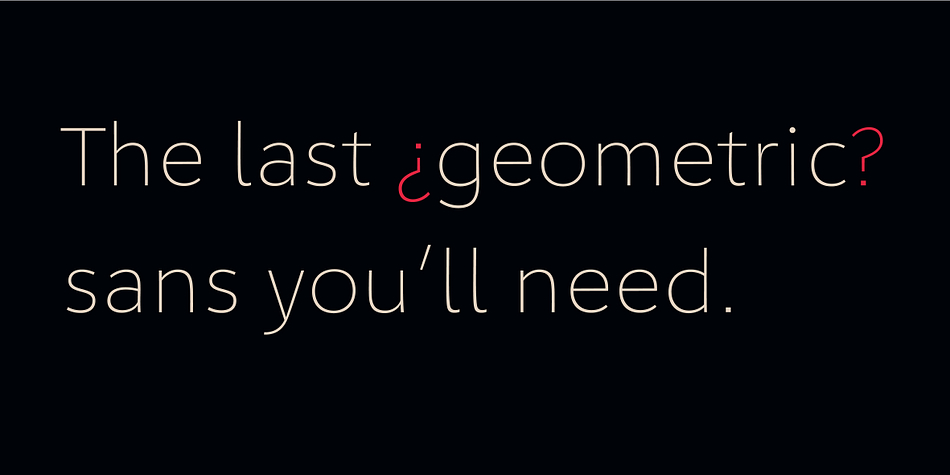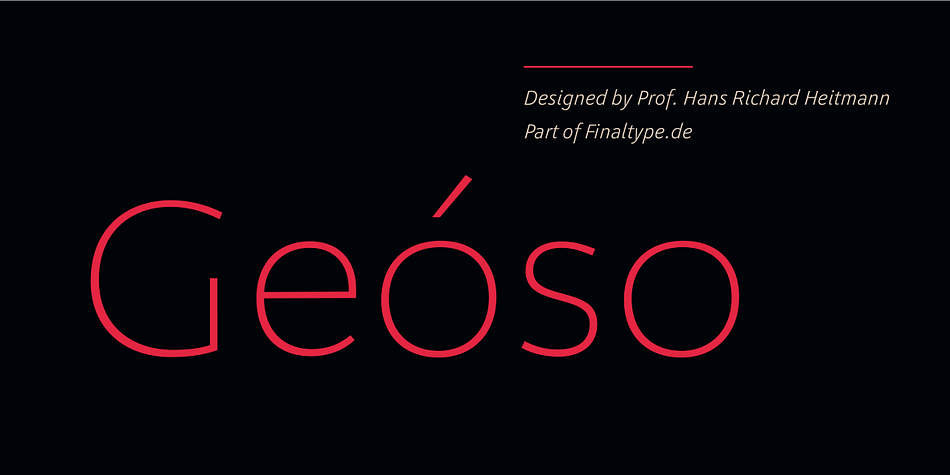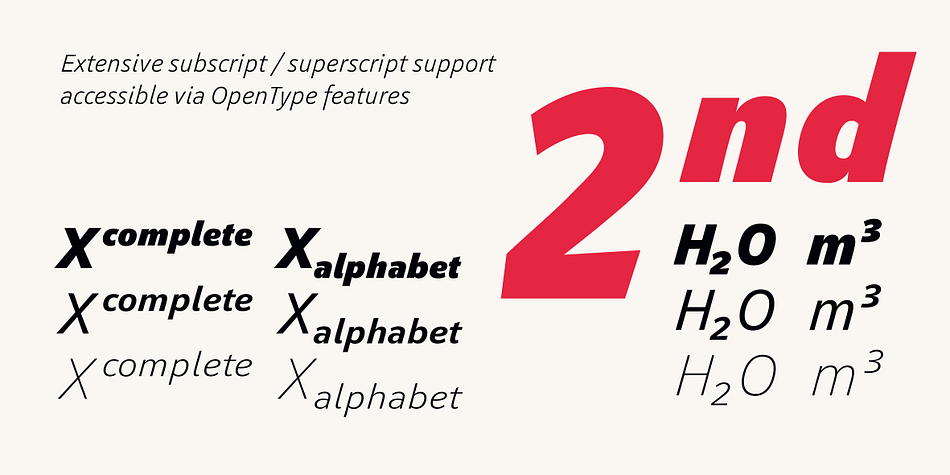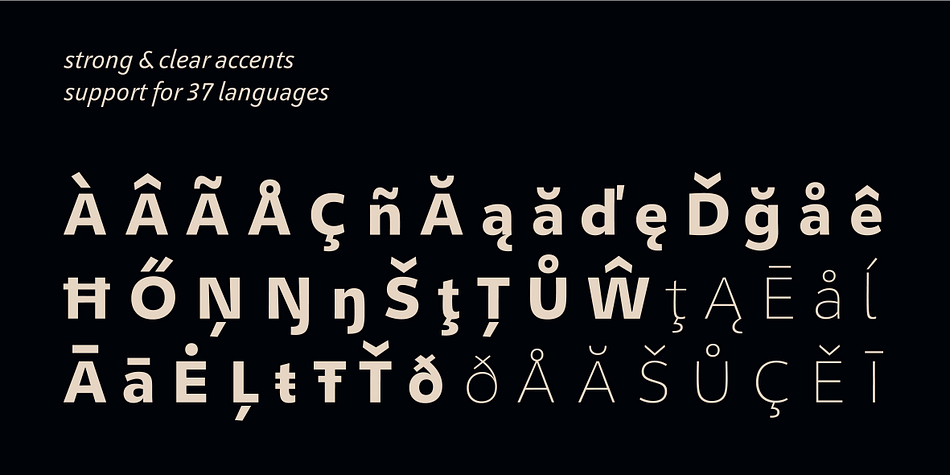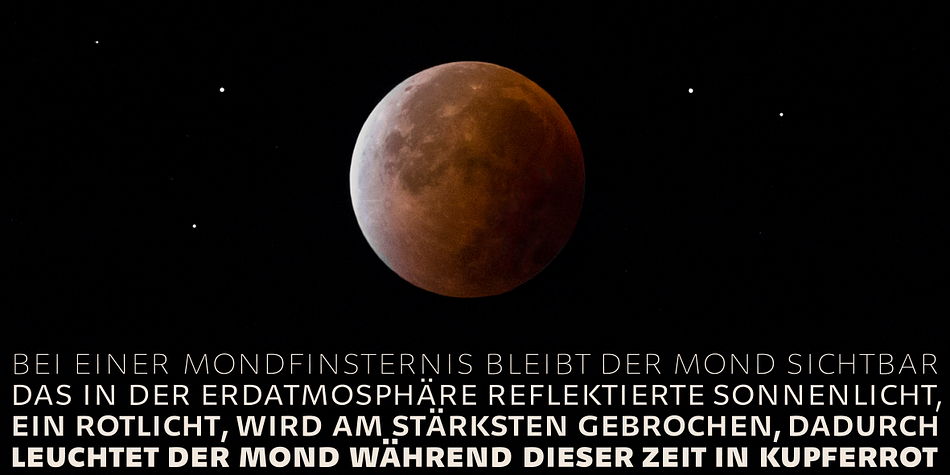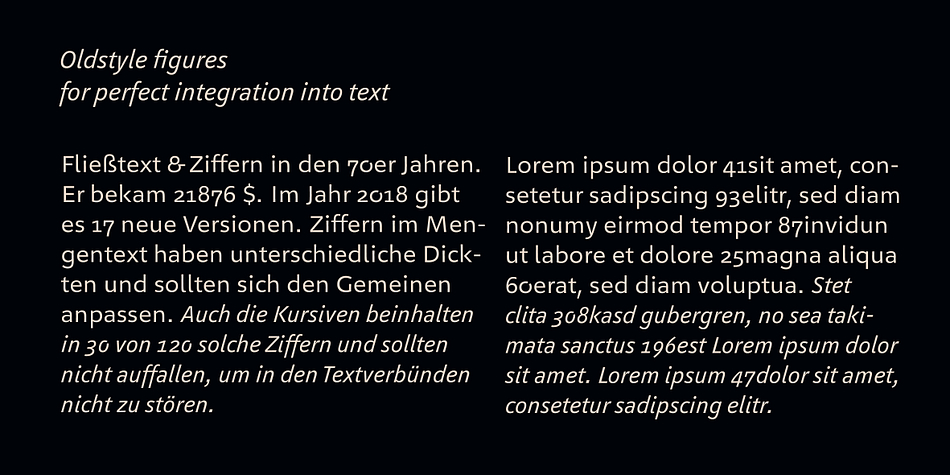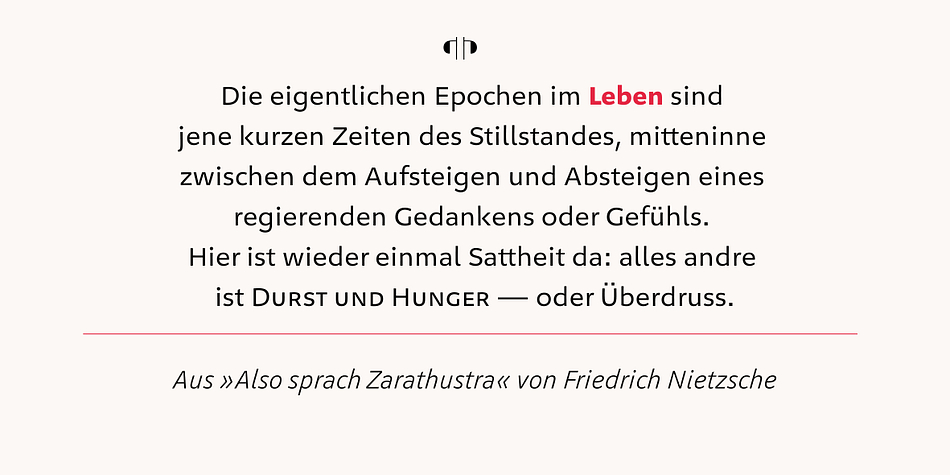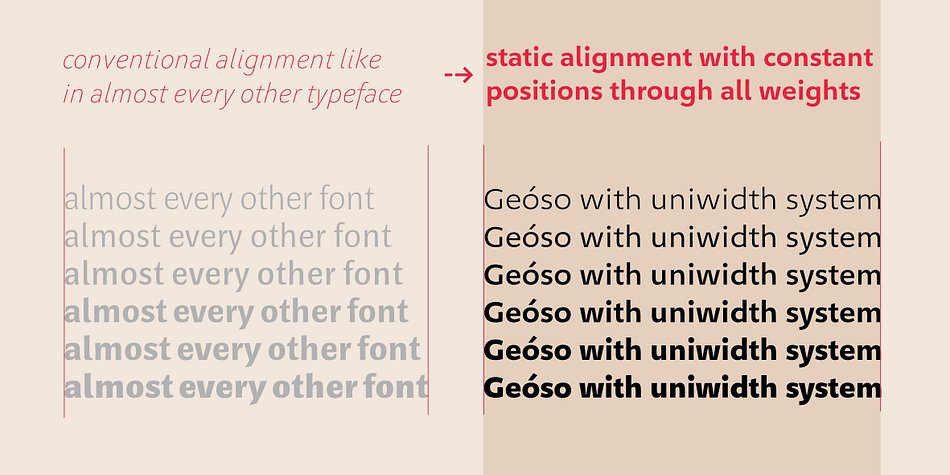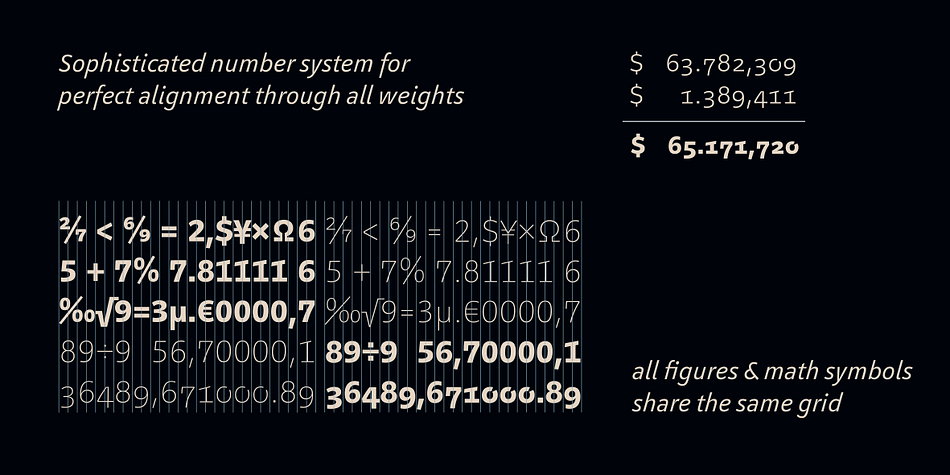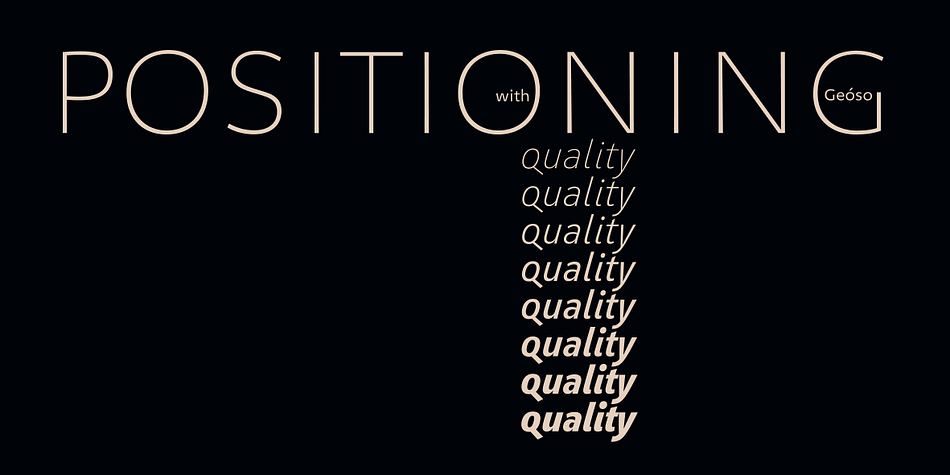
Designed by Hans Heitmann, Geóso is a display sans and sans serif font family. This typeface has forty-seven styles and was published by Finaltype.
Geóso is a humanist sans serif with a geometric feel. It brings italics which stand out and true small caps. The typeface is optimized for readability in small sizes – and elegance in large ones.
With Geóso, we followed a specific concept for spacing based on studies of aesthetic perception and supported by 30 years of experience by Prof. Hans R. Heitmann.